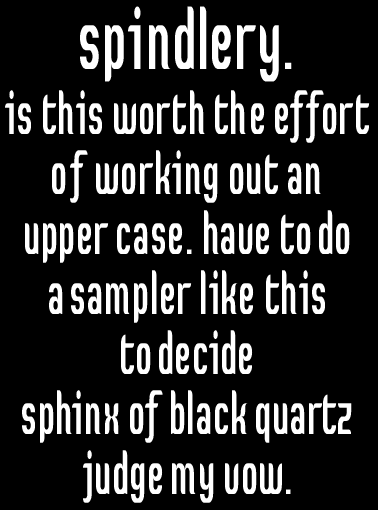
• A semi-softy-sans. It would be nice to terminate those square-ended glyphs like s and c with a wispy bit. But the 1.5 x 1 scheme makes it not-doable.
It's nice to get to the point of making a sampler. Though it's not so nice having to excessively massage the font through the kernificator. When, oh when Mr Meek?
Kerning is a long, long way off.
Proper manual control over the right side bearing (and finally a space character!) is nearer. More likely than kerning in FontStruct is an option to upload a manually-kerned version of a FontStruction for others to download.
Personally left and right side bearings are enough: kerning controls would be too cumbersome too manage in the simple (and wonderful) FontStruct interface.
And a space character? Wow!
@em42: you're right, of course. The whole idea is an abomination, forget I said it.
@meek: I'm salivating already. It sounds a simple option that we can ingeniously press into use.